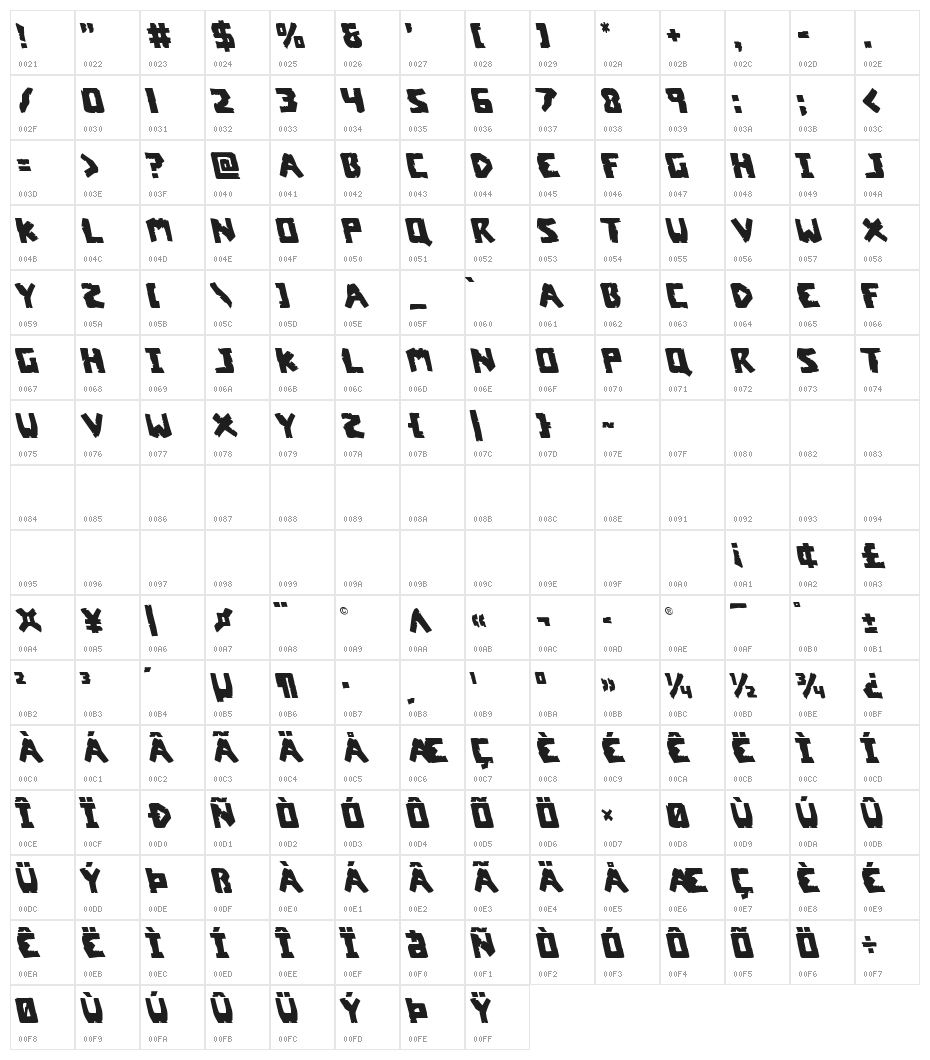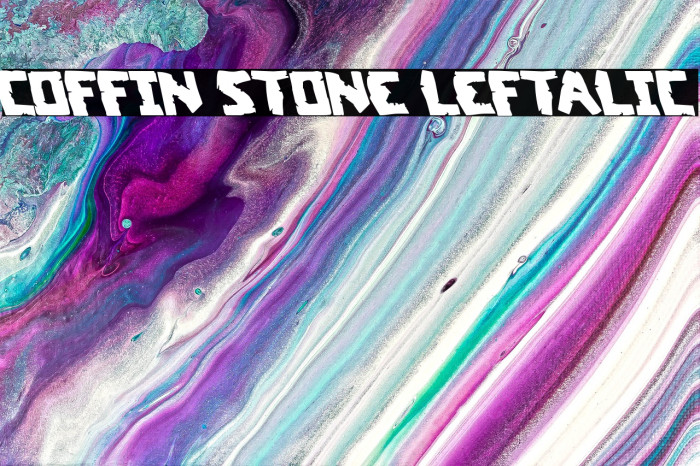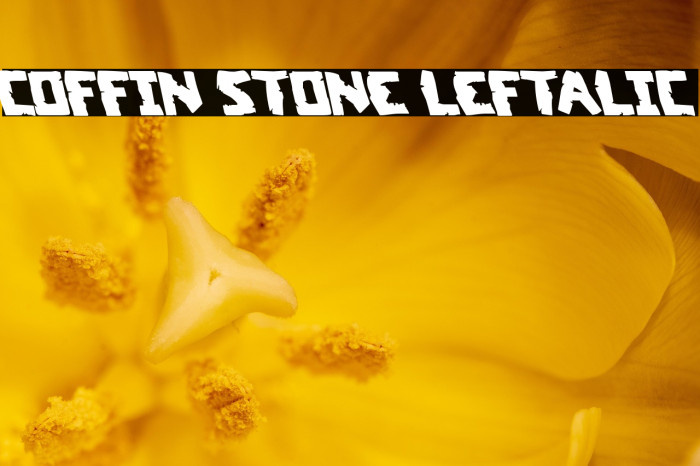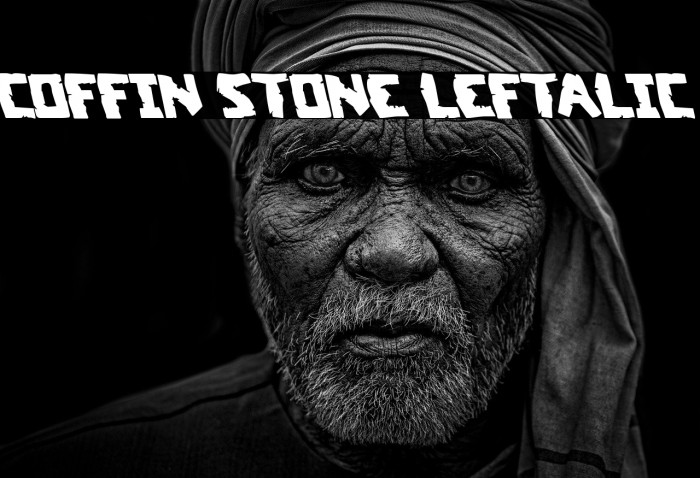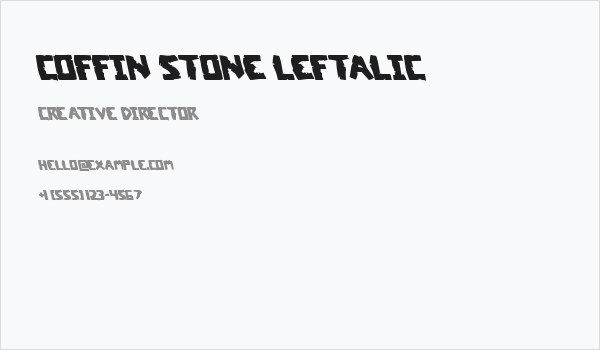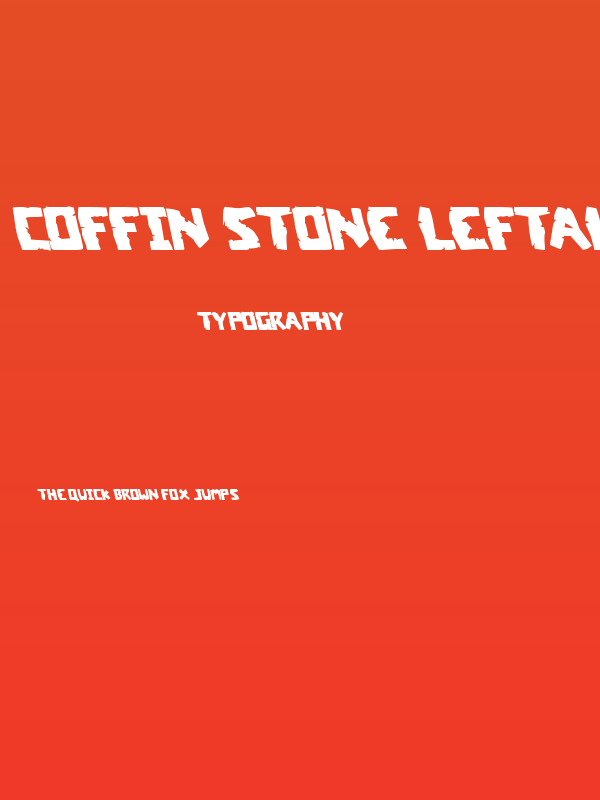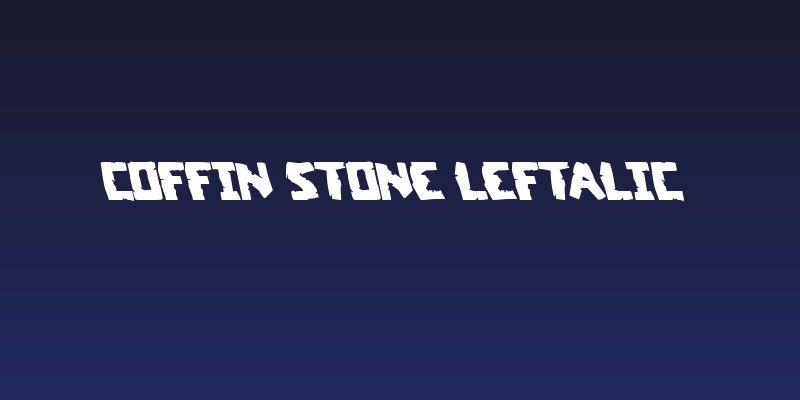
Coffin Stone Leftalic Font
Coffin Stone Leftalic Description
This font features a rugged, distressed appearance, reminiscent of chiseled stone or weathered rock. Each character is uniquely jagged, with irregular edges that create a bold and impactful visual style. The uppercase and lowercase letters maintain a consistent height, contributing to a cohesive look. The numbers and special characters follow the same rough-hewn aesthetic, making them stand out with their bold presence. This font's distinctive style is ideal for projects that require a strong, edgy, and unconventional typeface.
Proposed ProjectsIdeal for horror-themed posters, rock band logos, video game titles, or any project needing a bold, edgy look.